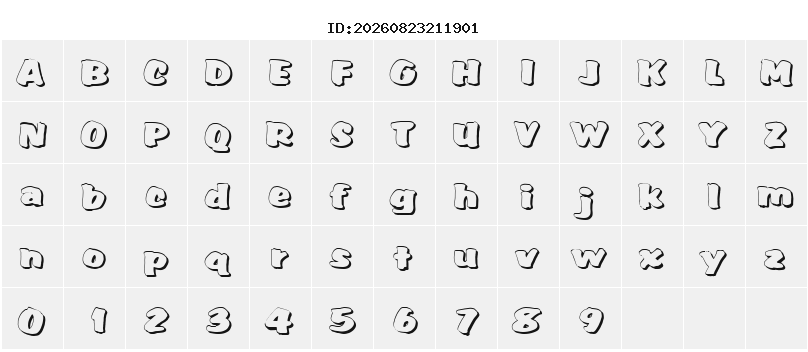
SarahBeckerShadow Preview
• Font Name: SarahBeckerShadow
• Full Font Name: SarahBeckerShadow
• PostScript Name: SarahBeckerShadow
About SarahBeckerShadow.ttf
SarahBeckerShadow.ttf is a modern, elegant sans-serif font designed for ultimate readability and visual harmony. Perfect for branding, headlines, web design, and print materials.